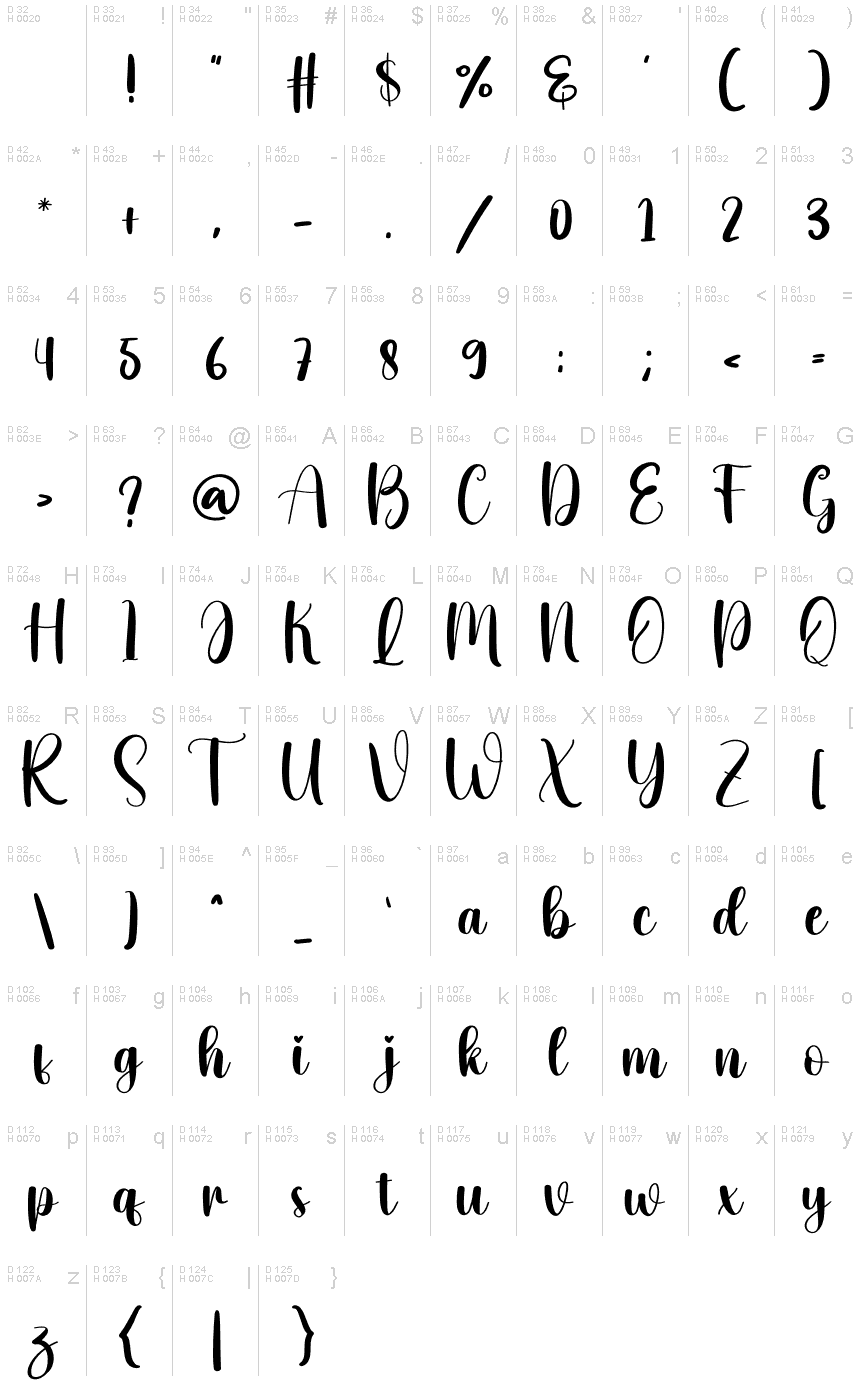
Bear
Bear, designed by Scratchones, brings the charm and individuality of handwritten script to digital design. With its fluid and expressive strokes, this font exudes a natural and organic feel that captures the essence of personal touch. The varying thickness of its lines adds a dynamic rhythm to any text, making it visually captivating and inherently human.
Bear's handwritten style lends itself perfectly to projects that require a sense of intimacy or artisanal quality. From boutique branding to personalized invitations, this font transforms words into visual artistry. Its aesthetic appeal lies in its ability to convey warmth and approachability, ensuring that messages crafted with Bear are not just read but felt.
Whether for print or digital media, Bear's versatile character makes it an excellent choice for designers looking to infuse their work with personality and flair.